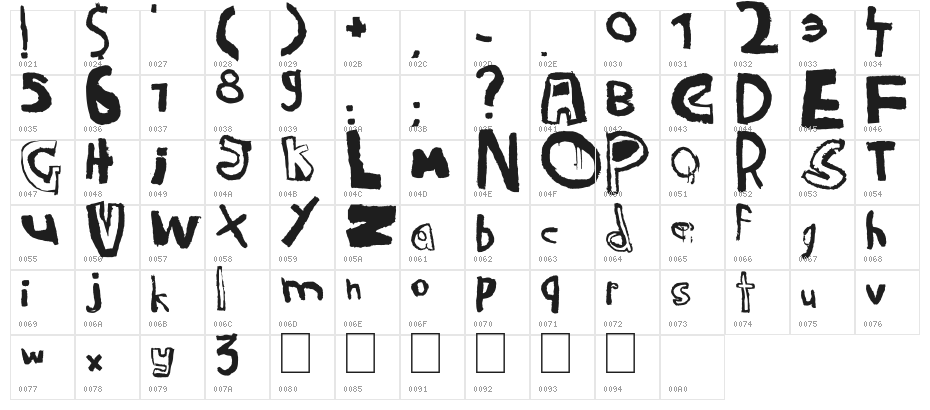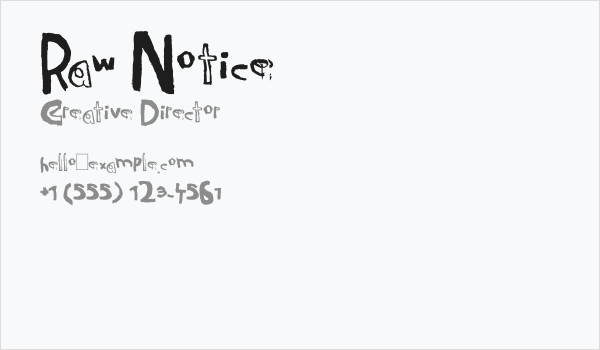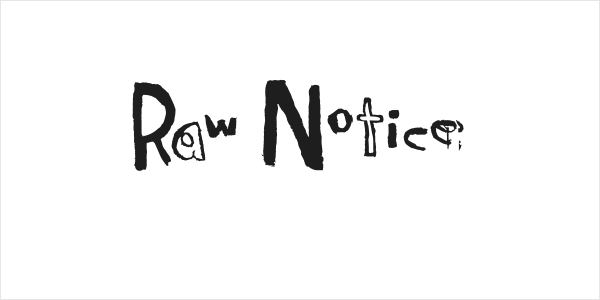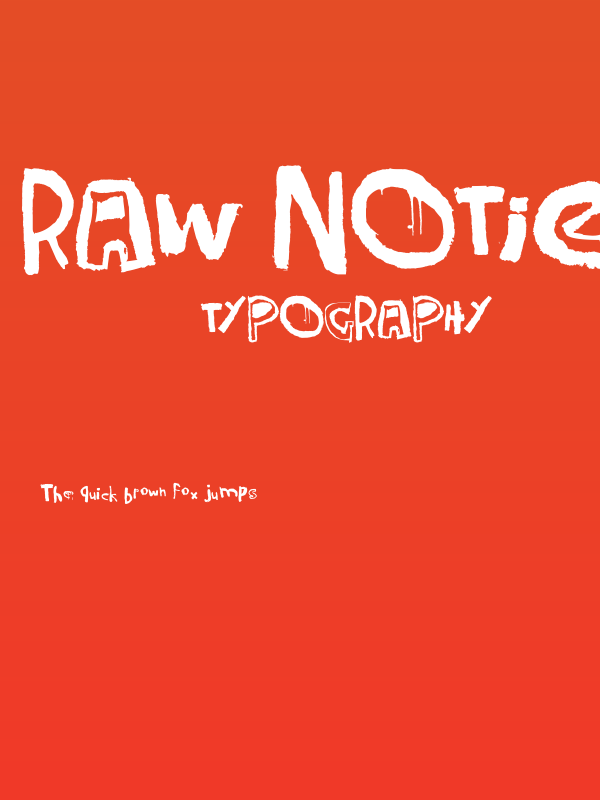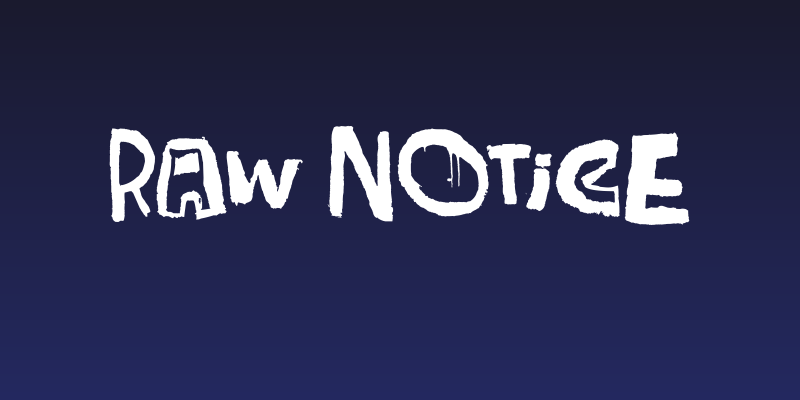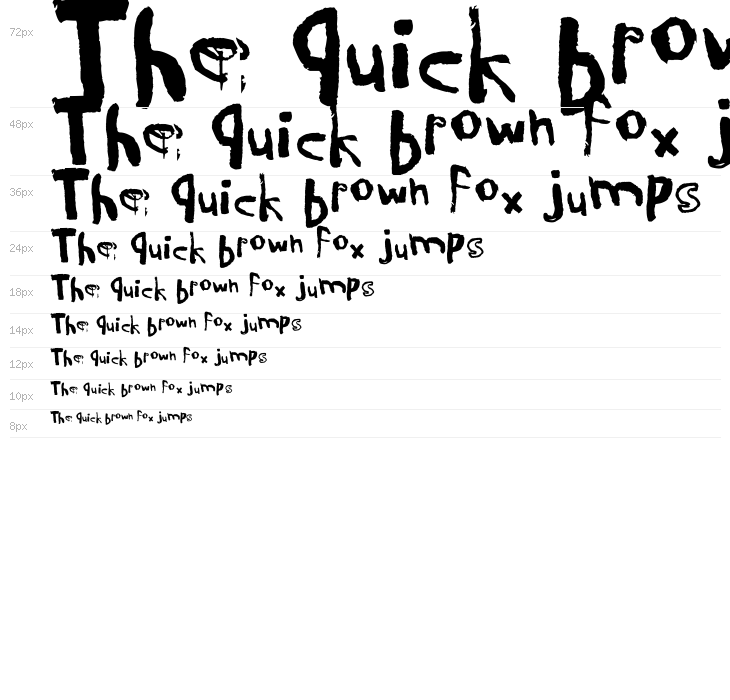
Raw Notice Font
Raw Notice Description
This font exhibits a raw, hand-drawn style with a playful and artistic flair. Each character is uniquely crafted, featuring irregular shapes and varying line thicknesses that give it a dynamic and energetic appearance. The uppercase letters are bold and prominent, while the lowercase letters maintain a consistent yet quirky design. Numbers and special characters follow the same artistic theme, adding to the font's overall cohesive look. The font's organic and imperfect nature makes it stand out, offering a sense of creativity and individuality.
| Overall Style | Artistic, Playful |
| Proposed Projects | Ideal for creative projects such as posters, album covers, children's books, and artistic branding. |